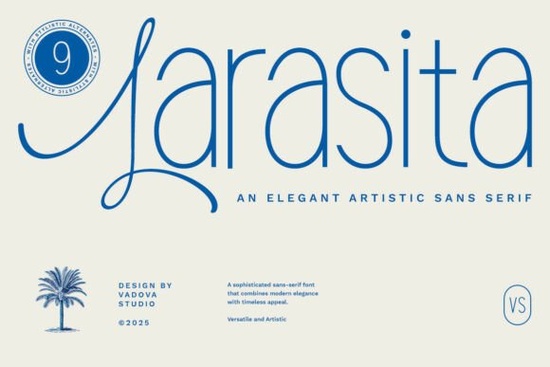
If you are looking for a typeface that balances modern simplicity with expressive curves, the Larasita Font is a strong choice for your next project. This elegant artistic sans-serif brings a sophisticated yet approachable feel to contemporary design. Whether you are a print-on-demand seller creating apparel or a small business owner updating your logo, this typeface delivers clean strokes and refined proportions that keep your text highly readable.
What makes this typeface stand out for modern branding?
The main appeal of this font lies in its subtle artistic details. Unlike rigid geometric options, it uses graceful curves to add personality without sacrificing clarity. The refined proportions ensure that it looks balanced at various sizes. When you are building a brand identity, you need a typeface that feels timeless but still fresh. This artistic sans-serif achieves that by blending display-ready elegance with everyday usability. It avoids looking overly ornate, which means it will not distract from your actual message or product.
Where should I use this typeface in my creative projects?
Because of its versatile character, this font works beautifully across multiple mediums and industries.
- Print-on-demand apparel: It looks fantastic on minimalist t-shirt designs, hoodies, or tote bags where the typography is the main visual focus.
- Wedding invitations and event stationery: The graceful curves give it a romantic, high-end feel that clients love for special occasions and announcements.
- Social media graphics: It stands out clearly on Instagram or Pinterest posts, especially when used for short, impactful quotes or promotional banners.
- Packaging design: The clean strokes ensure that product labels, candles, or cosmetics remain legible even when printed on smaller surfaces.
How does it fit in with other popular artistic styles?
When browsing through different options, it helps to see how various typefaces handle similar design goals. For instance, if you need something with a bit more vertical emphasis for a fashion label, you might also look at the Heightall design to see how its proportions differ. On the other hand, if you are designing something more casual or lifestyle-oriented, checking out the Tired Moms aesthetic can give you a good sense of how relaxed, approachable styles compare. Ultimately, if you want that perfect middle ground between artistic flair and strict professionalism, the Larasita files remain a top contender for your digital library.
What are the best practices for pairing it with other text?
To get the most out of this typeface, keep your pairings simple. Since it already has subtle artistic details, pairing it with a highly decorative secondary font can make your layout look cluttered.
- Use a basic geometric sans-serif for your body text to maintain a clean, modern hierarchy.
- Try an understated serif if you want to create a more traditional, editorial look for magazines, blogs, or menus.
- Keep the letter spacing slightly open when using it in all-caps for logos or headers to let the graceful curves breathe properly.
Quick checklist before you finalize your design:
- Check readability: Zoom out to 50 percent to ensure the artistic details do not blur together at smaller sizes.
- Test in context: Place your text over your actual background image or product mockup to verify contrast and legibility.
- Limit your font count: Stick to two typefaces maximum to keep the layout looking professional and intentional.